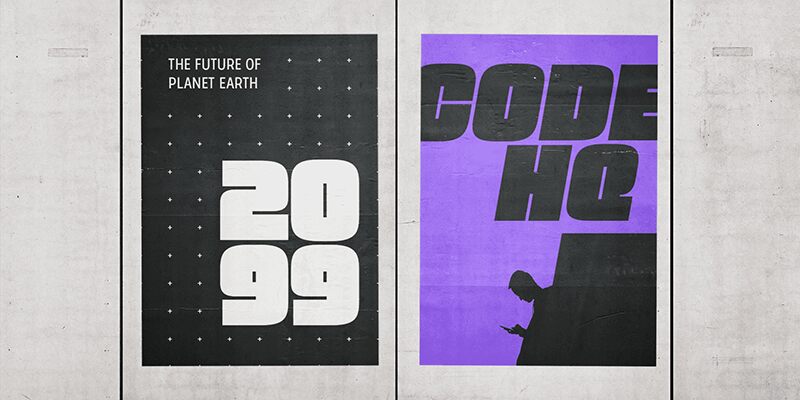
Brexon Italic
Brexon Italic font by Abhishek Junghare is a bold display typeface that captures attention with its heavy presence and all-cap characters. It is compact, geometric, assertive, and modern in style making it impossible to ignore when used in any sort of design for headings or branding. The font has been crafted so that each character stands out with a powerful personality.
Free Brexon Italic font is especially ideal for logos, packaging, advertising posters, magazine headlines, banners, social media designs,, invitation cards or packages you want to stand out on shelves. Other ideas can include graphics for TV and film sets or whatever else comes to mind.
Meet Brexon, a heavy display typeface designed for creating an impactful presence. Featuring diverse stylistic sets, it offers flexibility in choosing various glyph styles. It simplifies glyph navigation by linked base characters to their relative characters. It comes with a variety of symbols such as arrows, arrowheads, and triangles. Ideal for use in prominent headlines and heavy text layouts that demand attention.